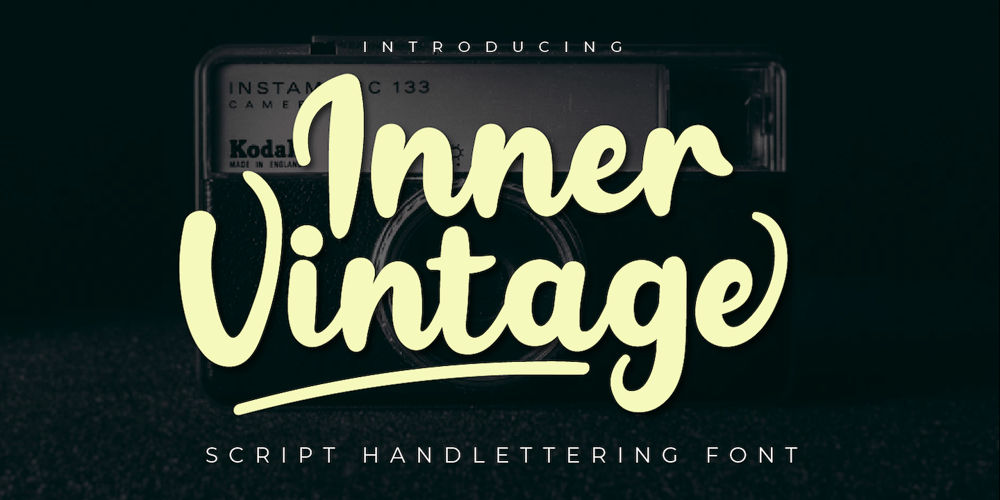
Inner Vintage Font Family was designed by Rozikan and published by Twinletter. Inner Vintage contains 1 styles and family package options. Introducing our newest Inner Vintage Font.This font is created with original hand-drawn strokes with a relaxed and elegant feel.This font also offers beautiful abstract typographic harmony for a wide variety of design projects, including natural handwriting in digital form for designs, Quote designs, for social media business designs, advertising, tradmark brands, promotional banners, lettering, posters, signatures and all designs requiring handwriting or whatever design you want.This font is equipped with uppercase, lowercase, numbers, punctuation, and several variations on each character including multi-languageThis font is best suited for open type friendly applications. How to get alternative glyphs from open type fonts: http://adobe.ly/1m1fn4YPUA Character Code – Fully accessible without additional design software.we hope you enjoy this font. Feel free to send us any message you want to get across.thankyou